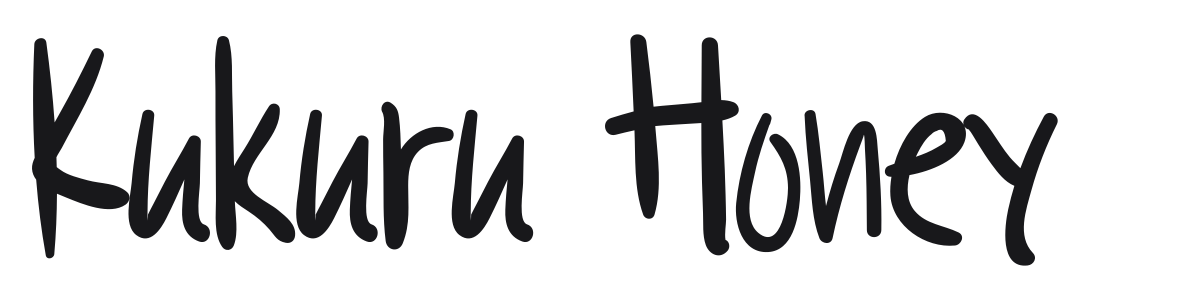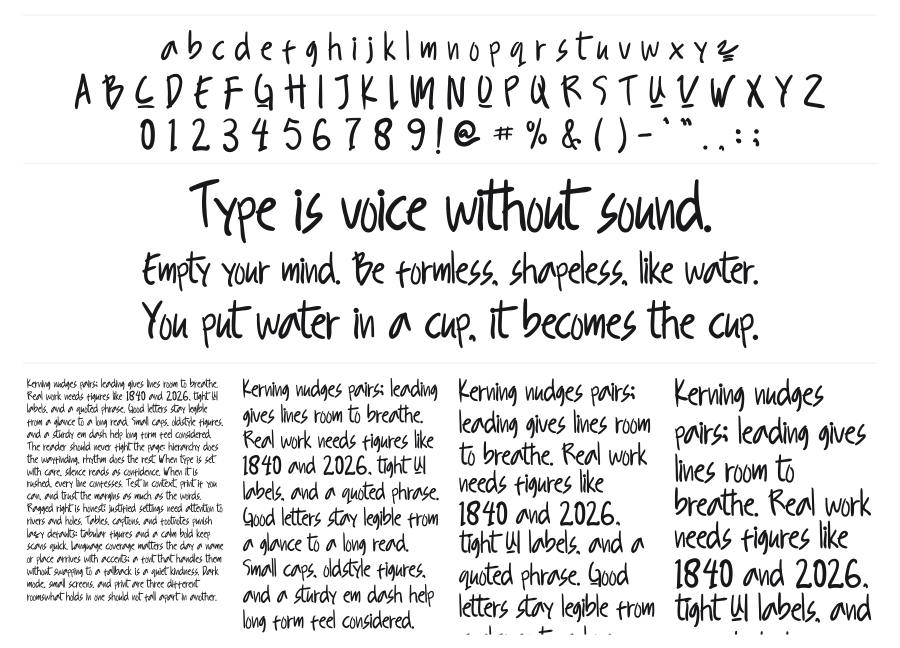
Kukuru Honey
Kukuru Honey is a bold upright casual script with the loose, energetic look of handwriting done with a thick marker. The irregular letter heights and spontaneous stroke endings give it a natural, unforced quality that feels genuinely hand-drawn rather than mechanically constructed. It carries warmth and personality well at headline and display sizes.